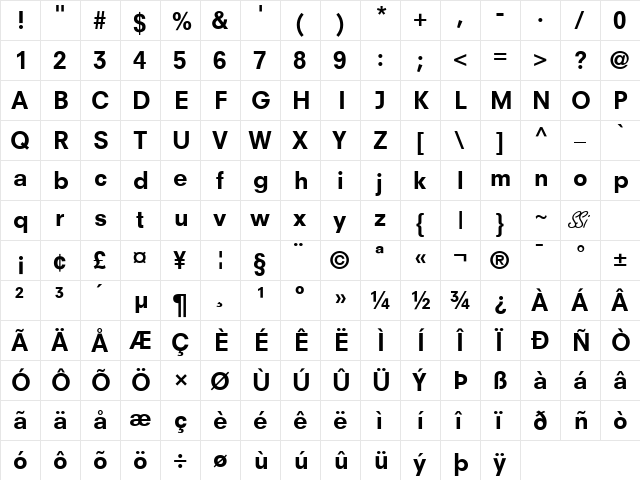
Parallax SSi Bold
Design Context for Parallax SSi Typeface
Parallax SSi takes a measured approach to typography — its balanced proportions and neutral character make it a reliable workhorse for both digital and print work. Its bold stroke weight gives it real presence on the page.
Pro Tip: Use Parallax SSi in both headline and body roles to test its range before committing to a single application.